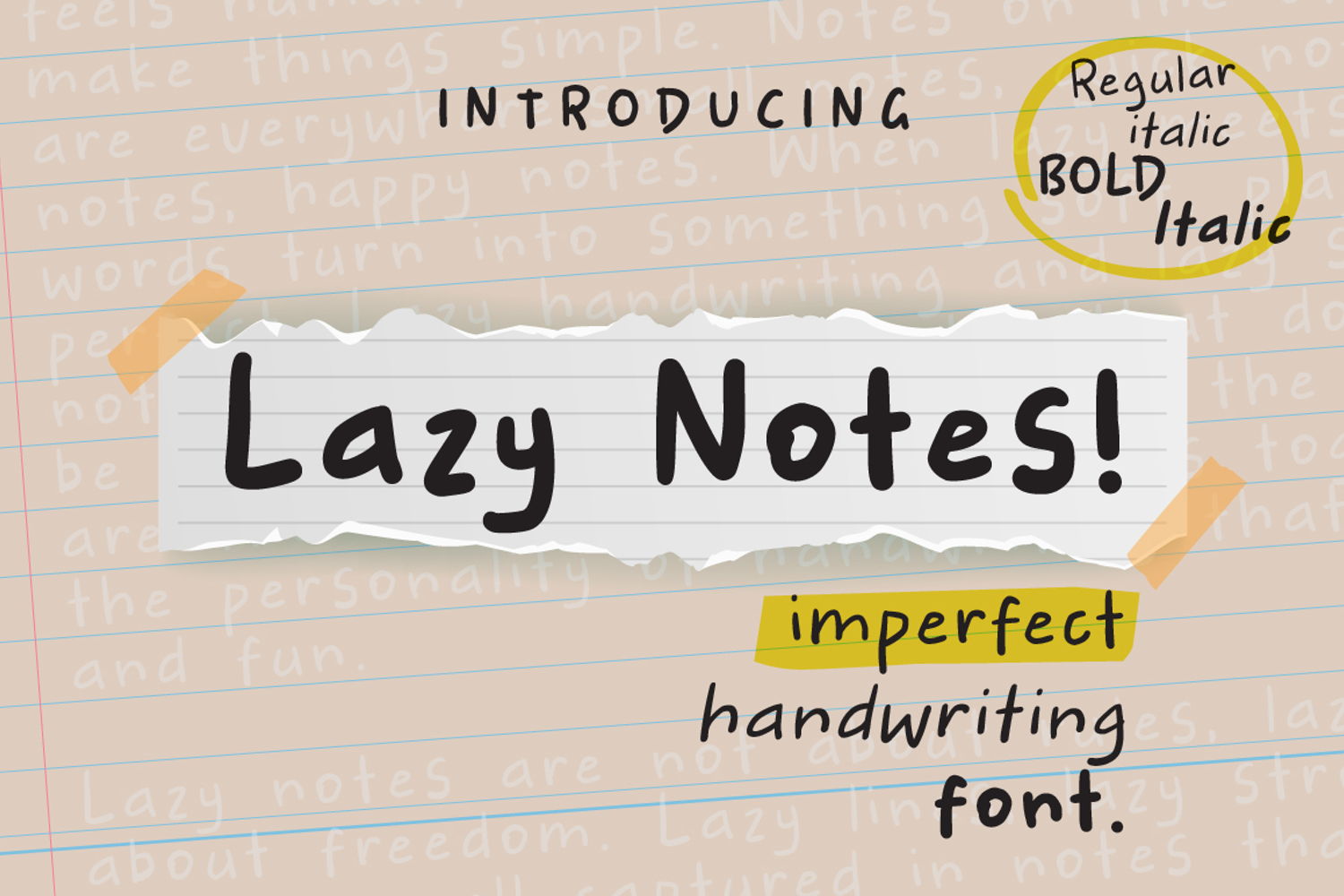
Lazy Notes - Note Taking Font
Lazy Notes Italic
Lazy Notes Bold Italic
Lazy Notes Regular
Lazy Notes Bold
Lazy Notes is a handwriting inspired font made for effortless note taking. Its strokes feel natural, a little messy, and perfectly imperfect just like real handwriting on a lazy afternoon. To give you more freedom in your creative projects, Lazy Notes comes in four styles: Regular, Regular Italic, Bold, and Bold Italic. Whether you’re jotting down quick thoughts, casual reminders, or notes, Lazy Notes brings a relaxed and authentic touch to your words. Because not every note needs to be perfect, sometimes it just needs to be lazy.